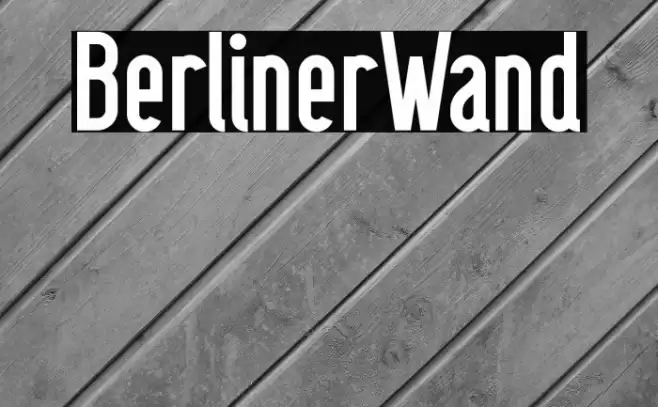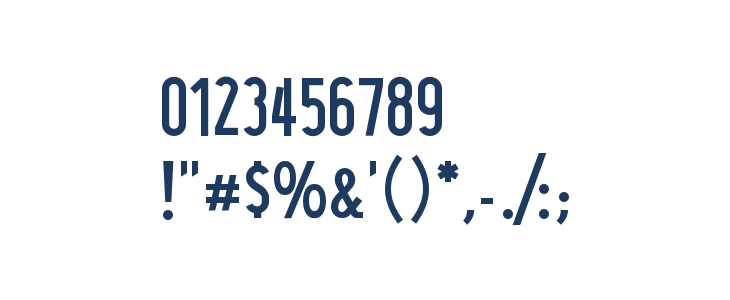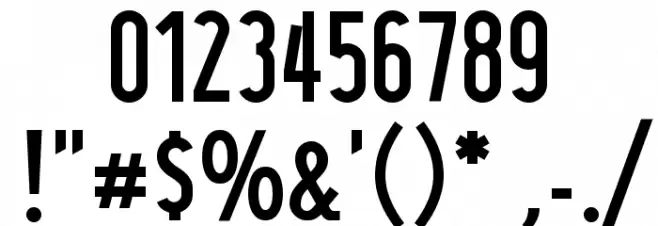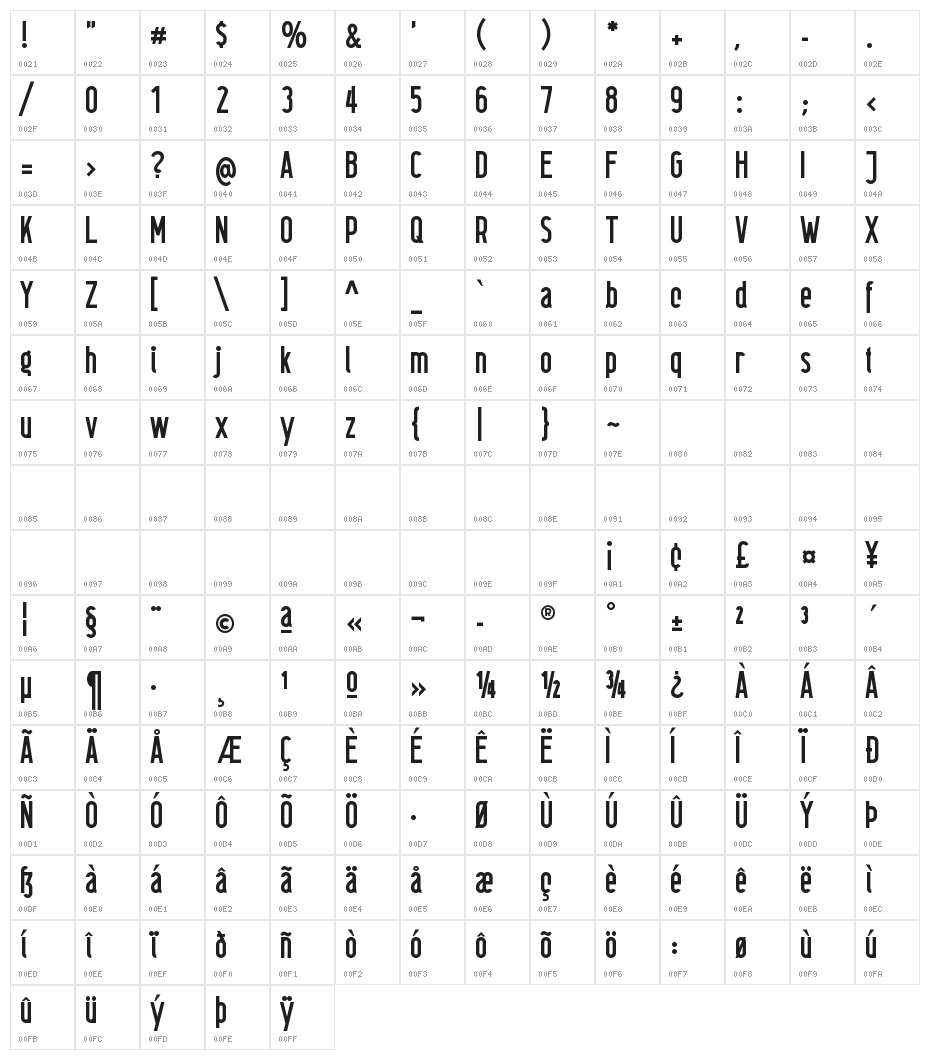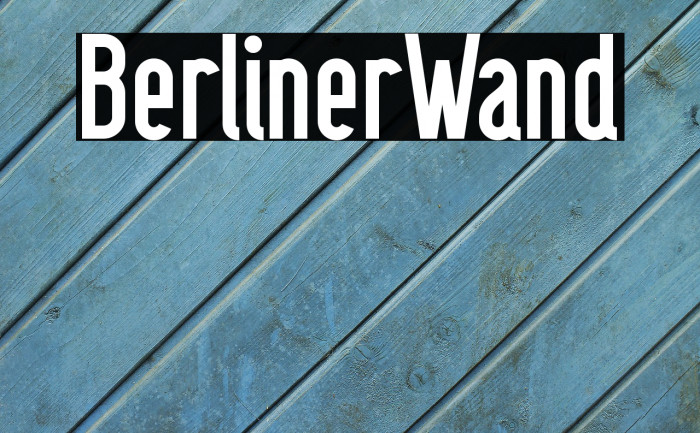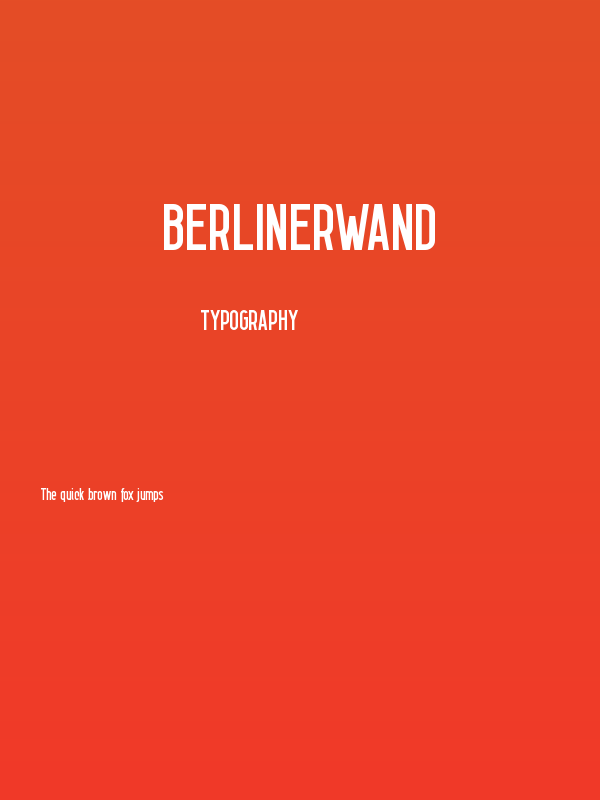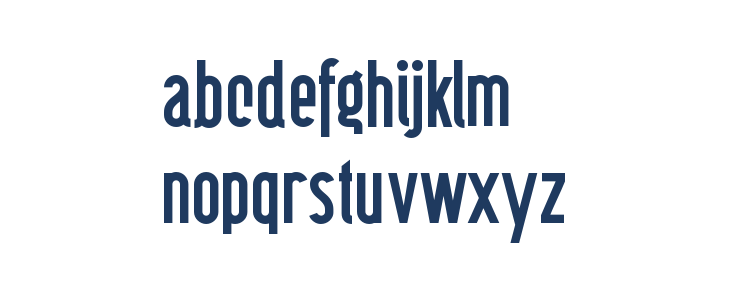
BerlinerWand Font
BerlinerWand Description
This font features a bold and modern sans-serif style with clean lines and a strong presence. The uppercase letters are tall and slightly condensed, giving a sleek and professional look. The lowercase letters maintain a consistent height and width, ensuring readability. The numerals are clear and distinct, matching the overall aesthetic of the font. Special characters are well-defined, adding versatility for various uses. The font's design is suitable for both digital and print media, offering a contemporary and stylish appearance.
A bold, modern sans-serif font with clean lines and a strong presence from Uncategorized fonts.
- Proposed Projects: Ideal for branding, advertising, headlines, and digital media projects.
- Use Case: Headlines, Logos, Branding